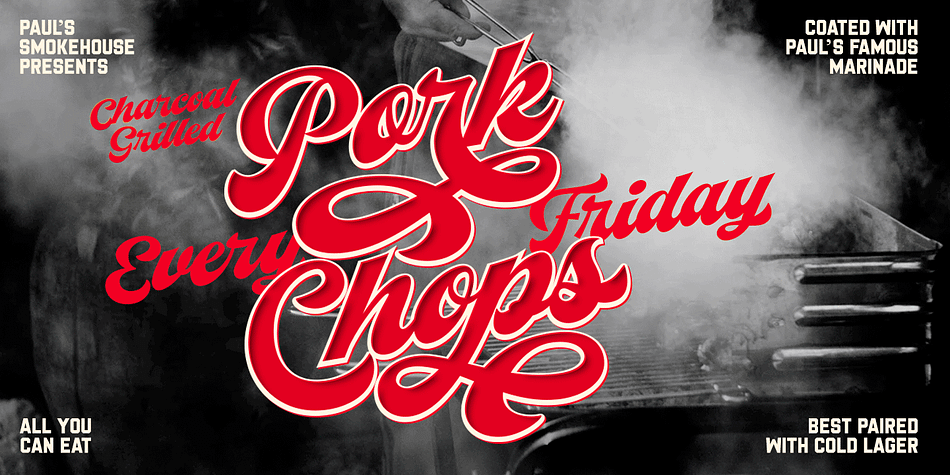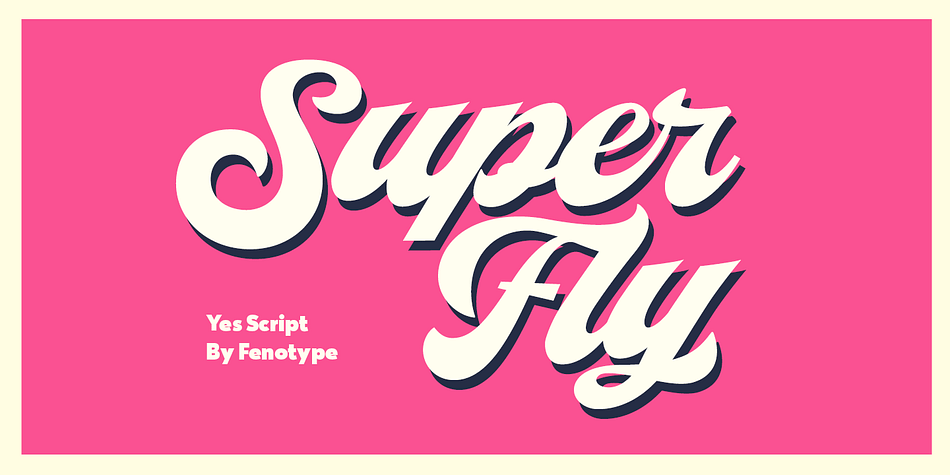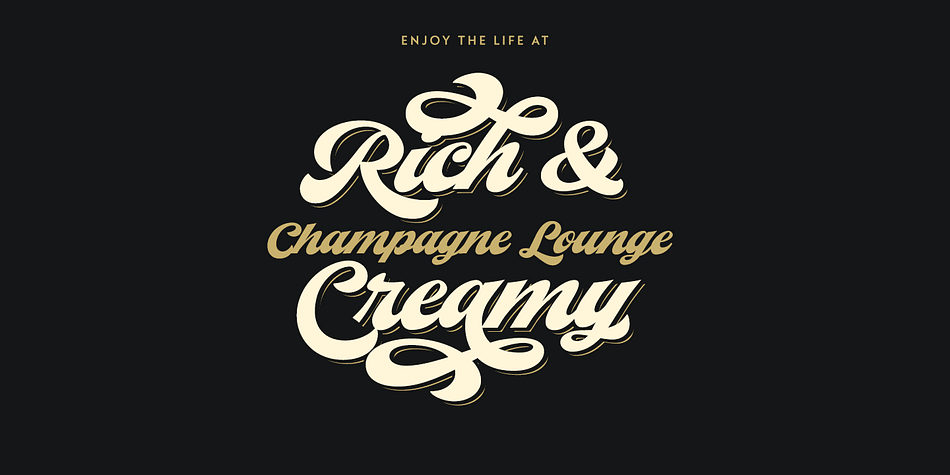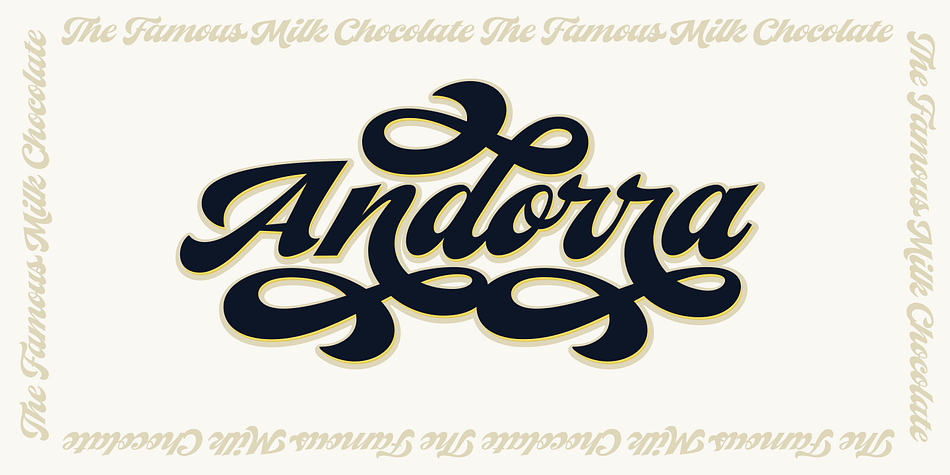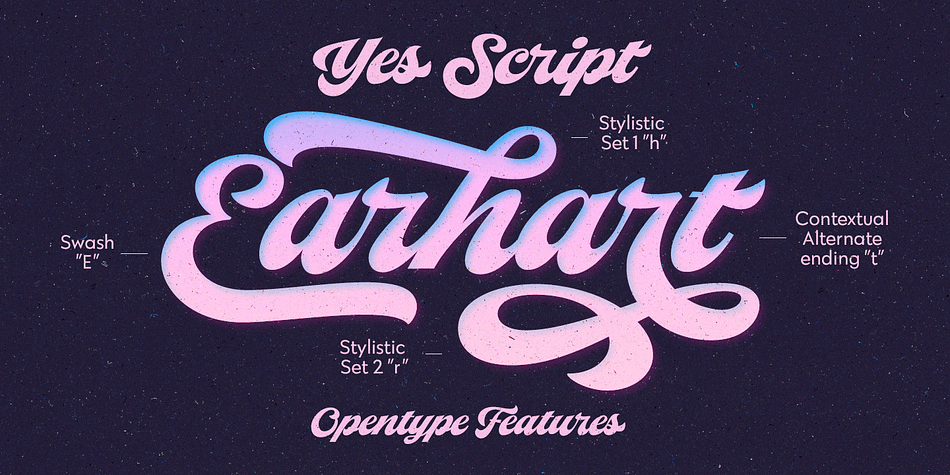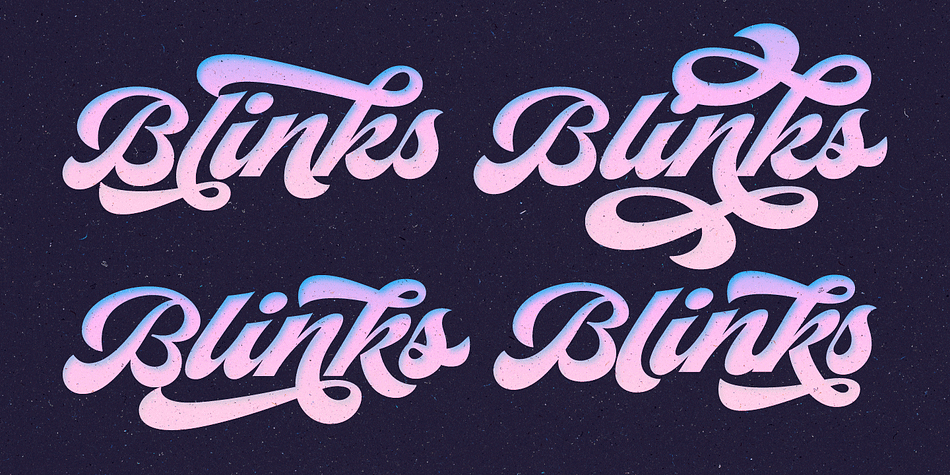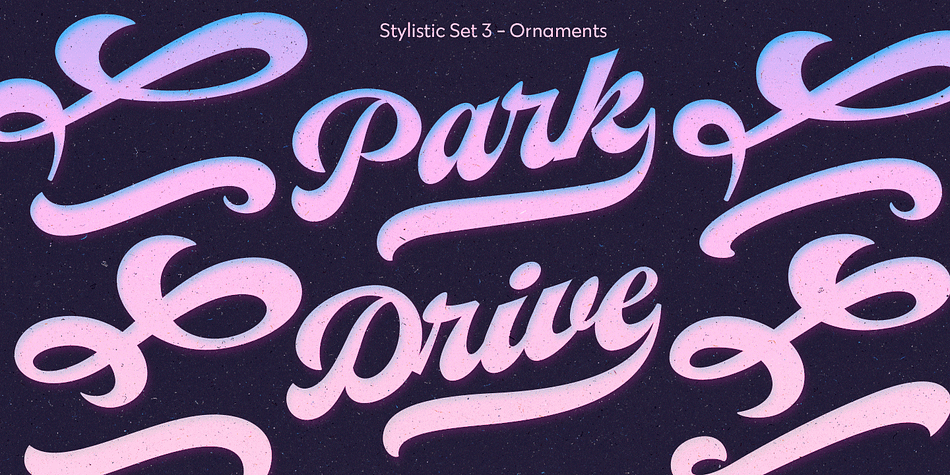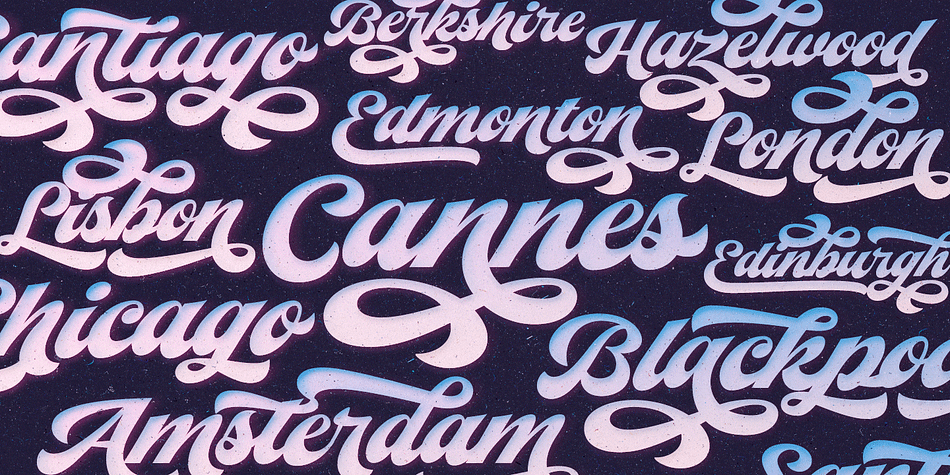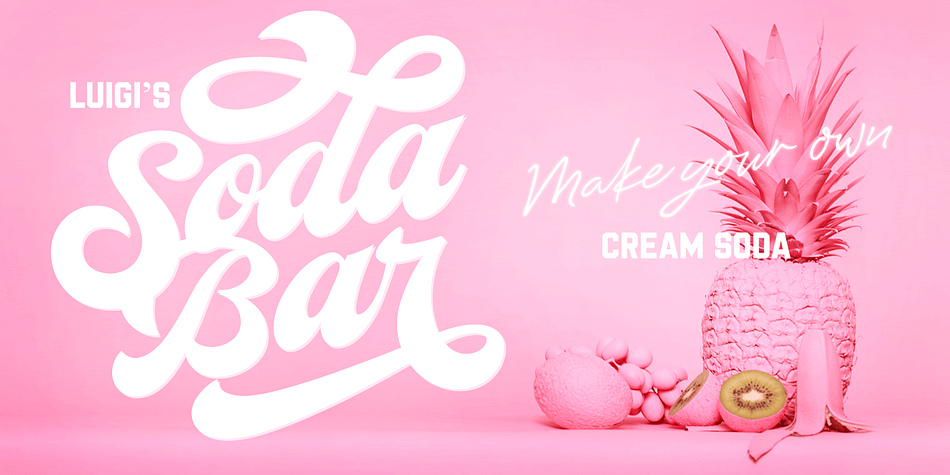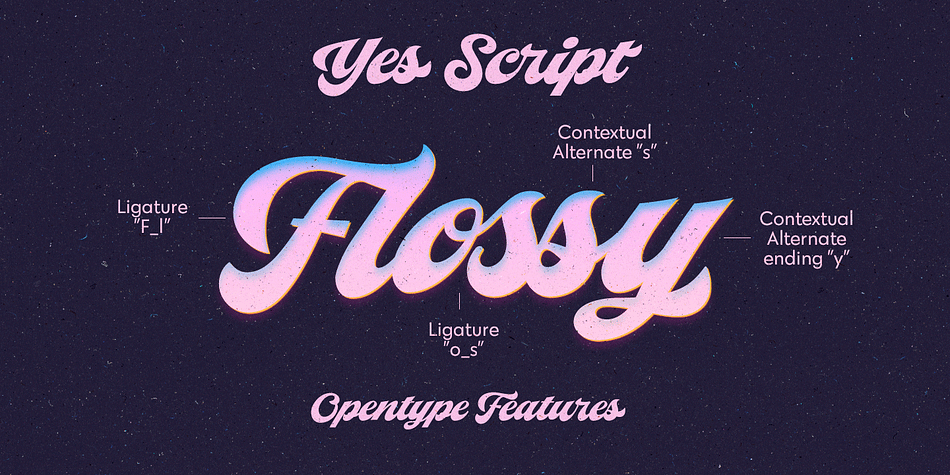
Designed by Emil Bertell, Yes Script is a brush script and retro font published by Fenotype.
Yes Script says Yes! Yes Script is a bold connected brush script inspired by the typography of the late 60s and 70s. Yes Script is not an anachronistic vintage type -due to it’s clean features and straight edges it’s more of a contemporary design suitable for branding, packaging, magazines and so on from digital to print.
Yes Script is equipped with Contextual Alternates and Standard Ligatures that are automatically on and help to keep the flow of the font natural and connections between letters smooth. In addition there’s Swash, Titling Alternates and two packs of Stylistic Sets. Access the alternates in any OpenType savvy software or seek the Character Palette for even more alternates. Stylistic Set 3 is packed with 24 swooshes and ornaments set in letters a-x.